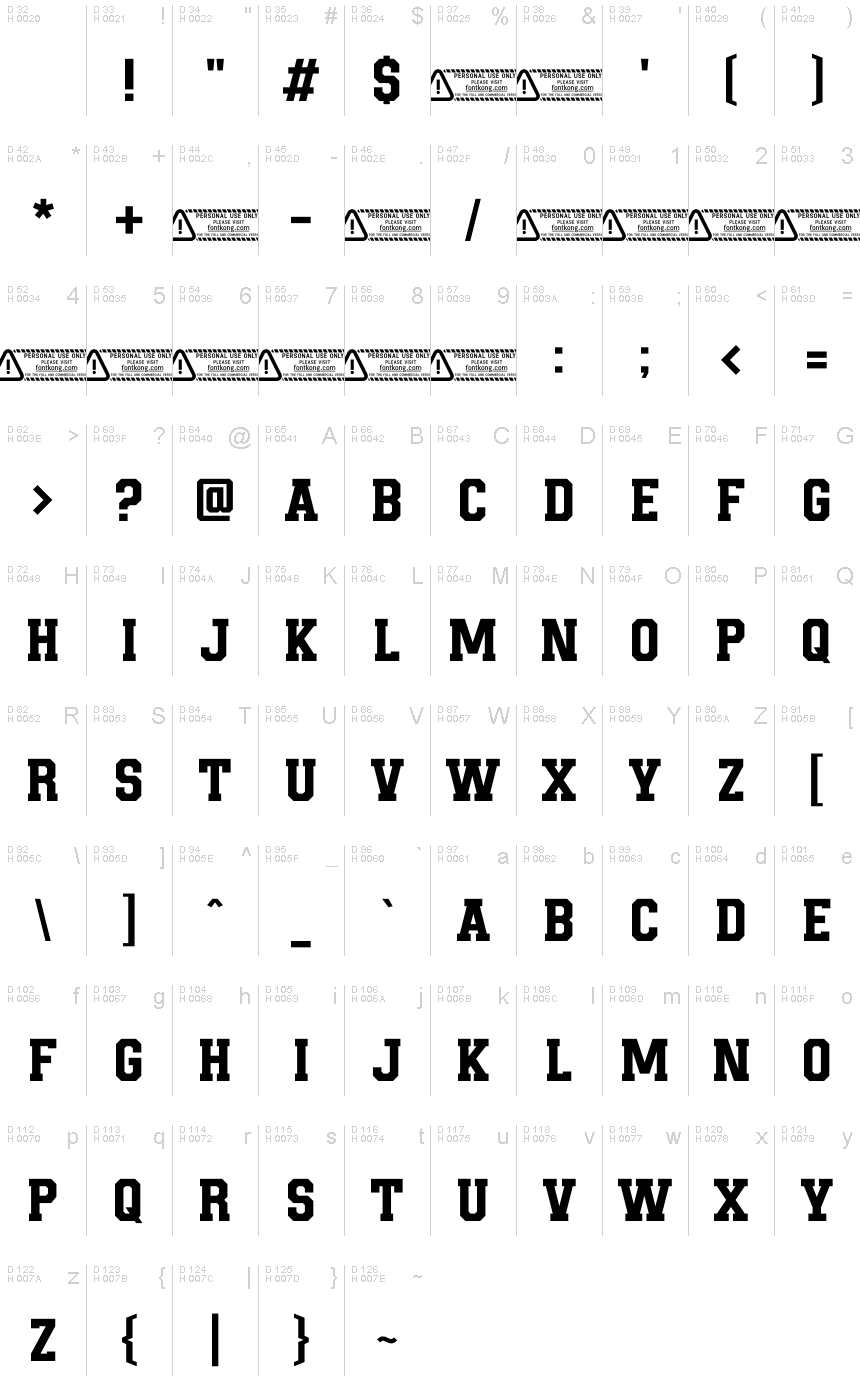
Backed
Backed is a bold, condensed serif font that commands attention. Designed by Kong Font, this typeface exudes a strong, authoritative presence with its thick strokes and compact, yet legible letterforms. The rounded serifs and geometric shapes lend a modern feel, balancing the font's robust appearance. Backed's distinctive character and impactful aesthetics make it well-suited for a variety of design applications, from eye-catching headlines and logotypes to powerful branding elements. Its condensed width allows for efficient use of space without sacrificing readability, making it a versatile choice for print and digital media.
Backed's confident personality and striking visual impact make it a compelling option for designers seeking a font that immediately captures the audience's attention.